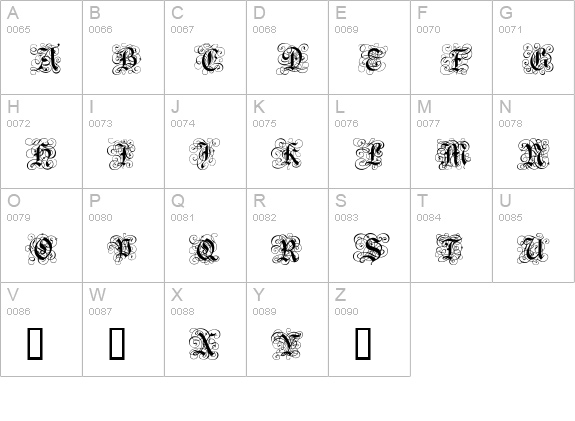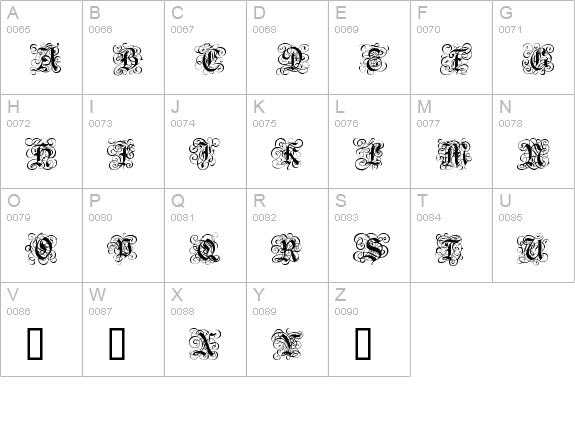
Gothic Flourish Font Details
Introducing Gothic Flourish font, a striking and elegant typeface that combines the intricate detailing of Gothic design with a touch of modern flair. This font features elaborate swirls, sharp serifs, and dramatic strokes that exude a sense of mystery and sophistication. Perfect for adding a touch of drama to your projects, Gothic Flourish is ideal for logos, invitations, posters, and more. What's even better is that Gothic Flourish font is available for free download at FontsMarket.com. So don't miss out on this unique and versatile typeface that will surely make your designs stand out. Download it today and unleash your creativity with Gothic Flourish font.